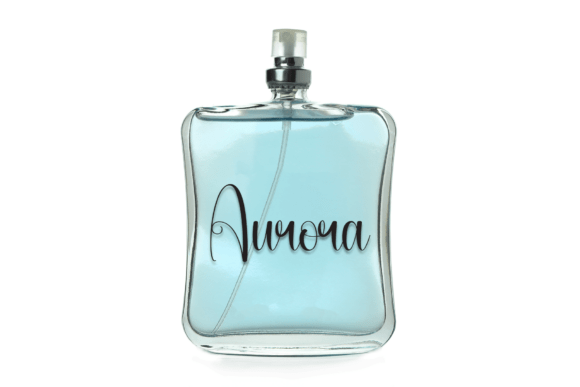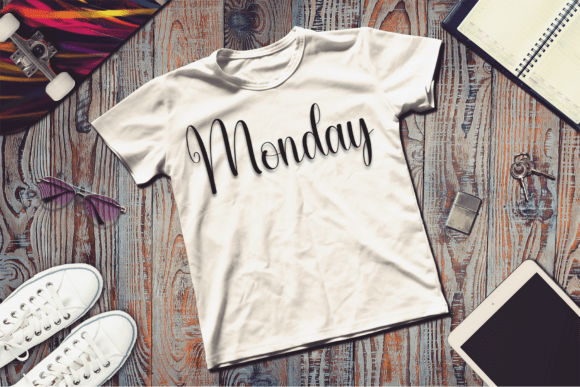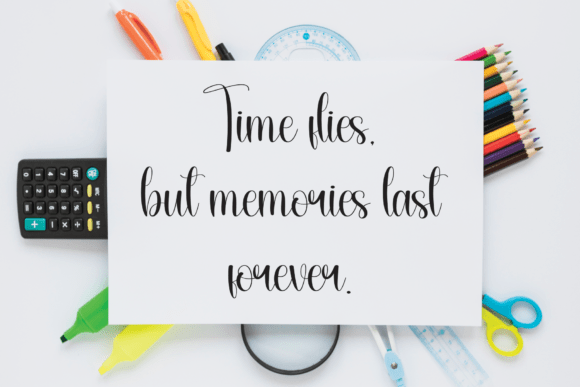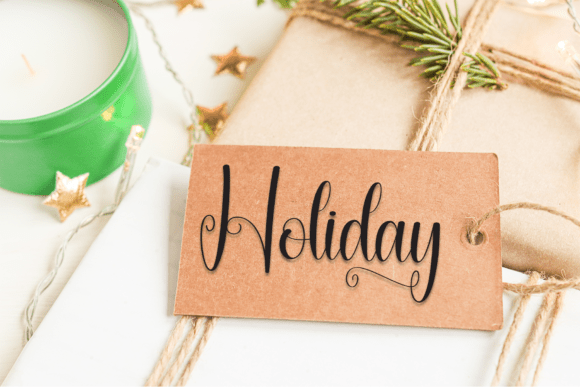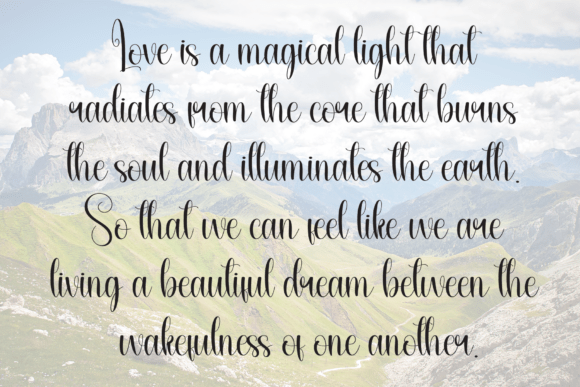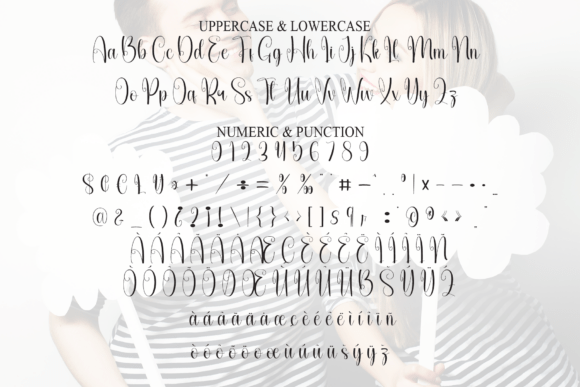
Introducing Darling Font: The Epitome of Elegance and Modern Flair
In the realm of typography, few fonts manage to strike a balance between elegance and modernity as effortlessly as Darling Font. This stylish handwritten script font has been turning heads with its unique blend of sophistication and charm, making it an ideal choice for designers and crafters looking to elevate their projects. Whether you’re working on branding, invitations, social media content, or any other creative endeavor, Darling Font is sure to bring a touch of refinement and personality to your work.
The Characteristics of Darling Font
Darling Font is distinguished by its flowing strokes and organic curves, which contribute to its warm and inviting appearance. Unlike more traditional fonts, Darling boasts a modern flair that sets it apart from the crowd. Its handwritten nature gives it a personal touch, making it perfect for projects where you want to convey a sense of individuality and care. The fluidity of its strokes and the elegance of its curves bring a level of sophistication that is hard to achieve with more generic typefaces.
One of the standout features of Darling Font is its versatility. It can seamlessly transition across various mediums and applications. For branding, it offers a unique opportunity to stand out in a crowded market with a distinctive and memorable visual identity. For invitations, whether they’re for weddings, parties, or corporate events, Darling Font adds a layer of elegance and anticipation. On social media, where visuals are paramount, this font can help elevate your content, making it more engaging and aesthetically pleasing.
Why Designers and Crafters Love Darling Font
Designers and crafters often find themselves on the lookout for fonts that can add a specific mood or character to their work. Darling Font, with its effortless charm and refined appearance, quickly becomes a go-to choice for several reasons:
- Ease of Use: Darling Font is incredibly user-friendly, making it accessible to both professionals and hobbyists. Its clear and flowing script is easy to read, even at smaller sizes.
- Customization: The font comes with a range of variations, allowing for a high degree of customization. This means you can adapt it to fit the unique needs of your project, from subtle alterations in weight to more pronounced changes in style.
- Compatibility: Darling Font is designed to work well across different platforms and devices, ensuring that your work looks great everywhere, from professional printouts to digital screens.
Tips for Using Darling Font Effectively
To get the most out of Darling Font, consider the following tips:
- Pair It Wisely: Darling Font pairs beautifully with clean sans-serif fonts for a modern contrast or with serif fonts for a more traditional look. Experiment with different combinations to find the perfect balance for your project.
- Play with Sizes: Don’t be afraid to vary the font size to create visual hierarchy and emphasis. Larger sizes can be used for headings and titles, while smaller sizes are perfect for body text.
- Emphasize with Color: While the font itself is a significant part of its appeal, using it in conjunction with a thoughtful color palette can elevate your design to new heights. Consider the mood you want to convey and choose colors that complement the warmth and sophistication of Darling Font.
Darling Font is more than just a typeface; it’s a design element that can transform your projects with its elegance and modern flair. Its versatility, combined with its unique charm, makes it an invaluable tool for designers and crafters looking to make a statement. Whether you’re aiming for a luxurious feel, a personal touch, or simply a design that stands out, Darling Font is sure to deliver. With its flowing strokes, organic curves, and effortless charm, it’s the perfect addition to any creative endeavor.